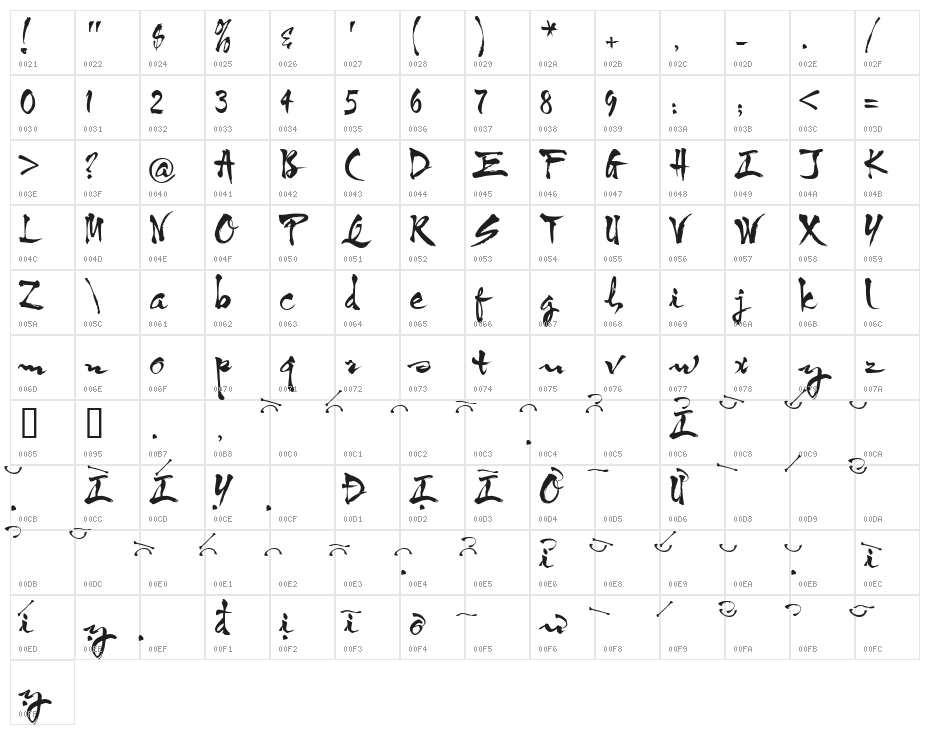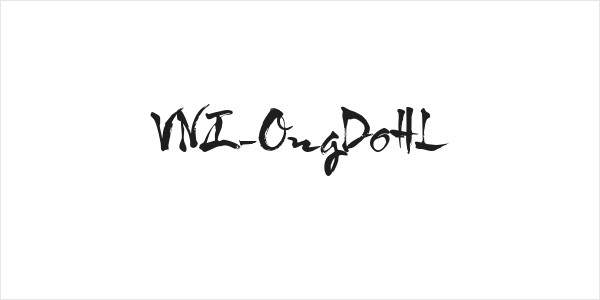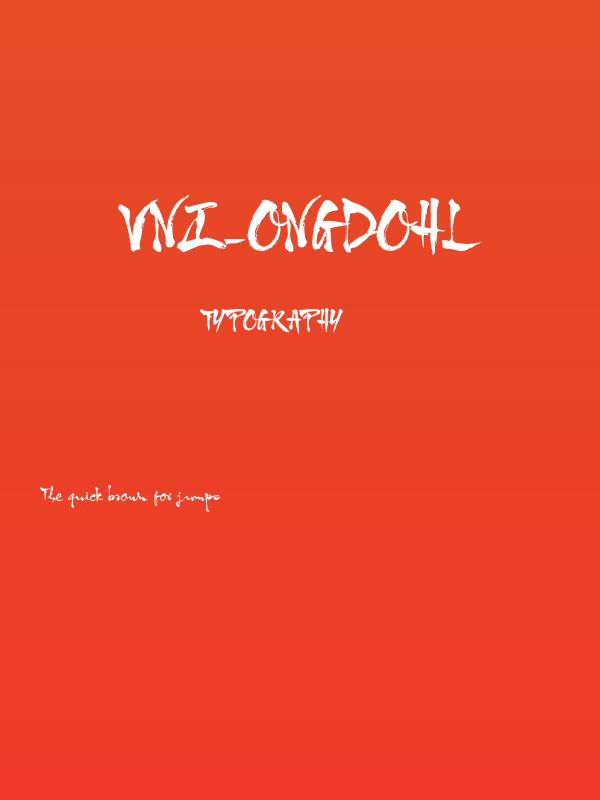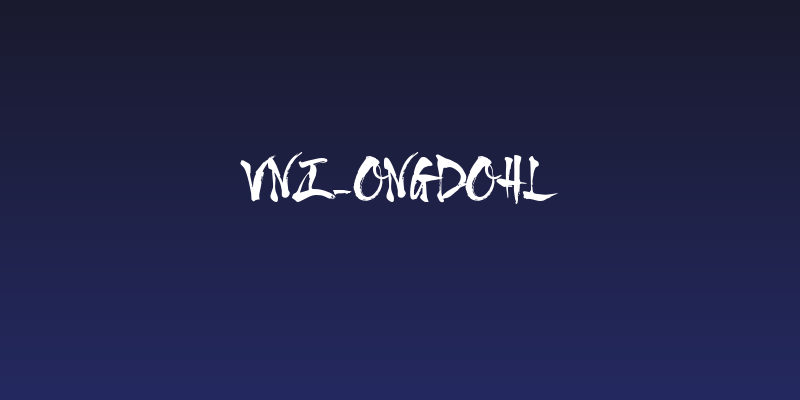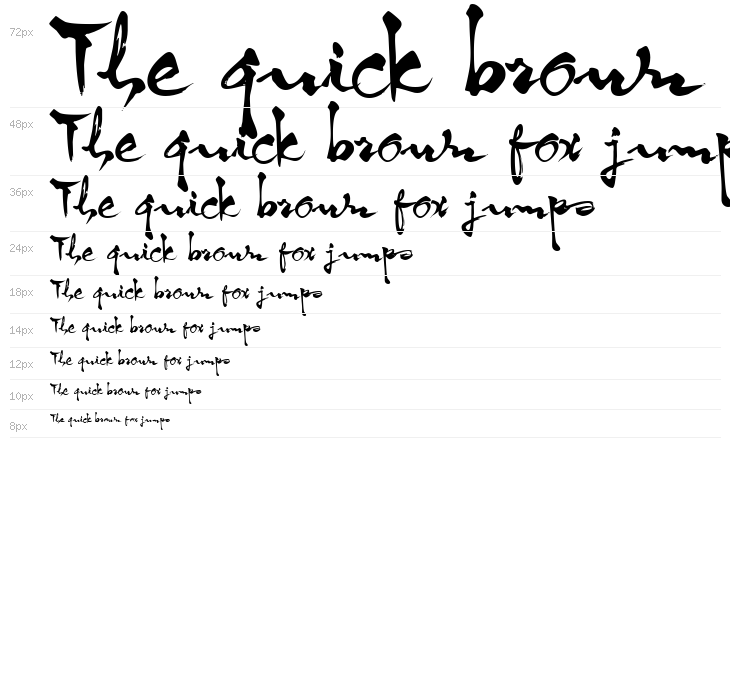
VNI-OngDoHL Font
VNI-OngDoHL Description
This font exhibits a bold and expressive style, characterized by its brush-like strokes and dynamic flow. The uppercase and lowercase letters are crafted with a sense of movement, giving an impression of handwritten calligraphy. The strokes vary in thickness, adding to the font's energetic and artistic appearance. The numerals and special characters maintain this lively aesthetic, making the font suitable for creative and informal applications. Its unique style captures attention and conveys a sense of creativity and spontaneity.
| Proposed Projects | Ideal for artistic projects, posters, invitations, and branding that require a creative and expressive touch. |